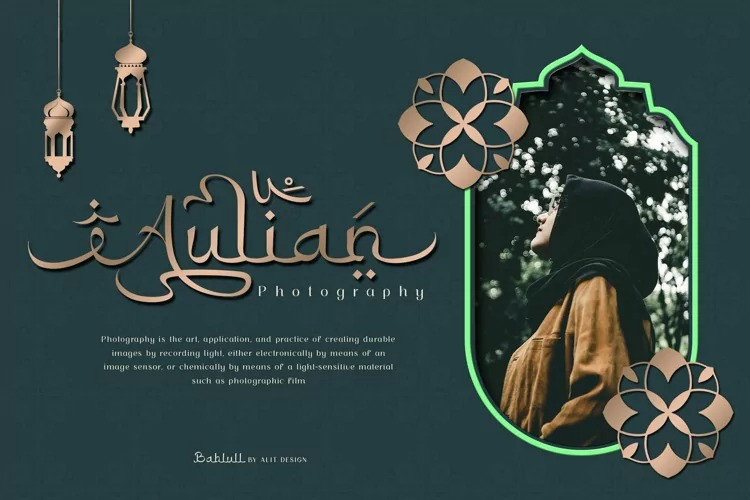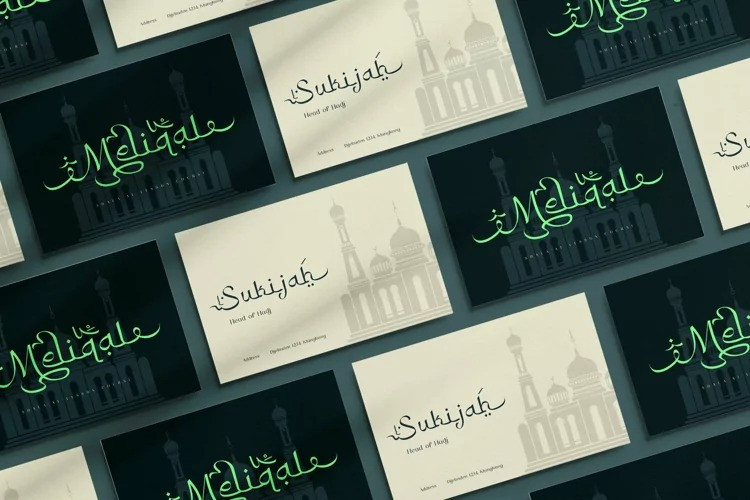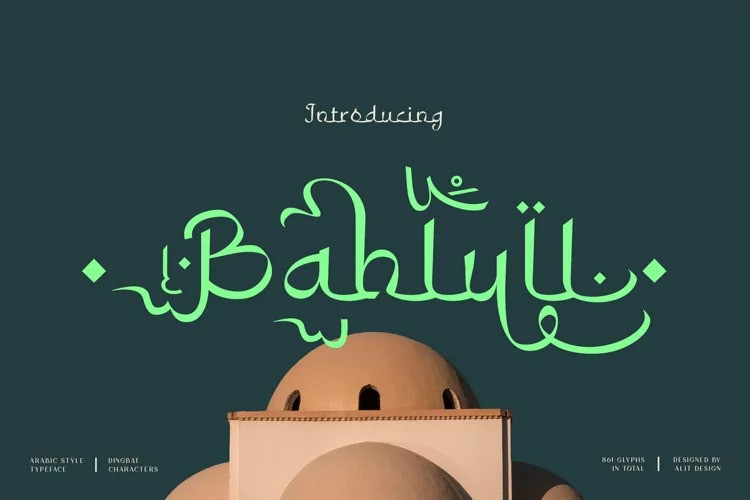
Bahlull Font
Bahlull Arabic Typeface is a beautifully crafted font product with a unique style that is perfect for religious and Islamic designs. This font is specifically designed to cater to the design needs of the Ramadan promotion, and it has a distinctively Islamic and religious vibe that is sure to impress your audience.
One of the standout features of Bahlull Arabic Typeface is its support for PUA Unicode, which ensures that users can easily access all of the font’s characters without any issues. The font also supports multilingual characters, making it perfect for use in various languages.
With 861 glyphs characters, Bahlull Arabic Typeface offers a wide range of characters, allowing users to create stunning designs with various styles and options. The font’s characters are well-crafted and easily readable, making it an ideal choice for any design that requires an Arabic font.
In summary, Bahlull Arabic Typeface is a versatile and elegant font product that is perfect for Ramadan promotions and other religious and Islamic design projects. With PUA Unicode support, multilingual characters, 861 glyphs characters, and a bonus Bahlull Dingbats font, this product is sure to meet all of your design needs.